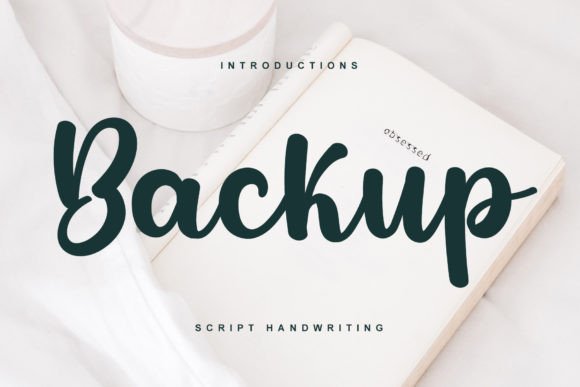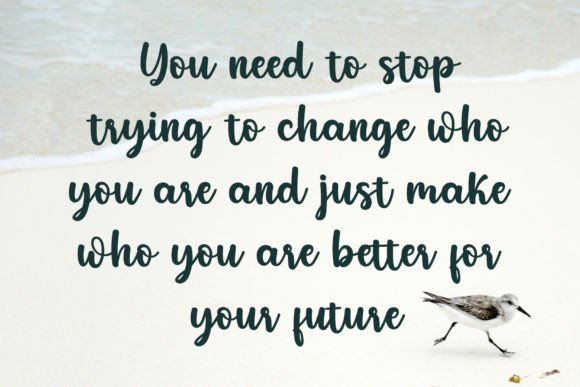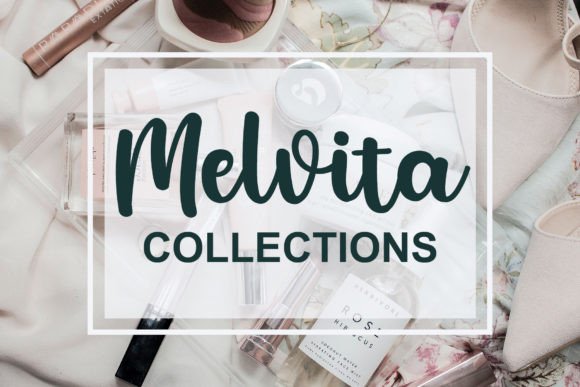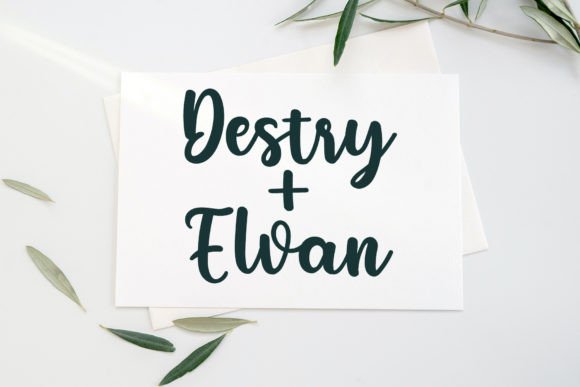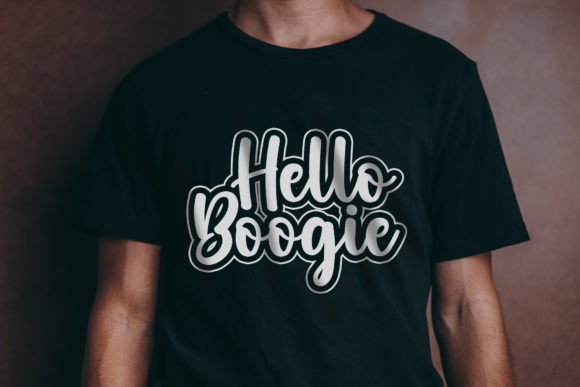
Add timeless charm to your designs with the Backup font, a classic and simple handwritten script created with a freestyle touch. This font brings a natural and authentic feel, perfect for a wide variety of creative projects.
The Backup font is highly versatile. You can use it for logotypes, headlines, corporate identity, brand identity, apparel design, posters, music covers, movies, games, magazines, books, comics, cartoons, YouTube thumbnails, Instagram posts, websites, and more.
Designed with a random freestyle approach, the Backup font offers a casual yet professional look. It captures the essence of natural handwriting while maintaining clarity and readability.
Despite its simplicity, the Backup font stands out with its unique style. Whether you use it for bold headlines or subtle branding details, it will elevate your work with a handcrafted touch.
Using the Backup font will give your designs a genuine and approachable personality. If you want a handwritten font that is both classic and versatile, this font is an excellent choice.
In summary, the Backup font is a classic, simple, and freestyle handwritten script. Perfect for logos, headlines, branding, social media, and many other projects, it will add timeless elegance to your creative designs. Download it today and enhance your projects with Backup.